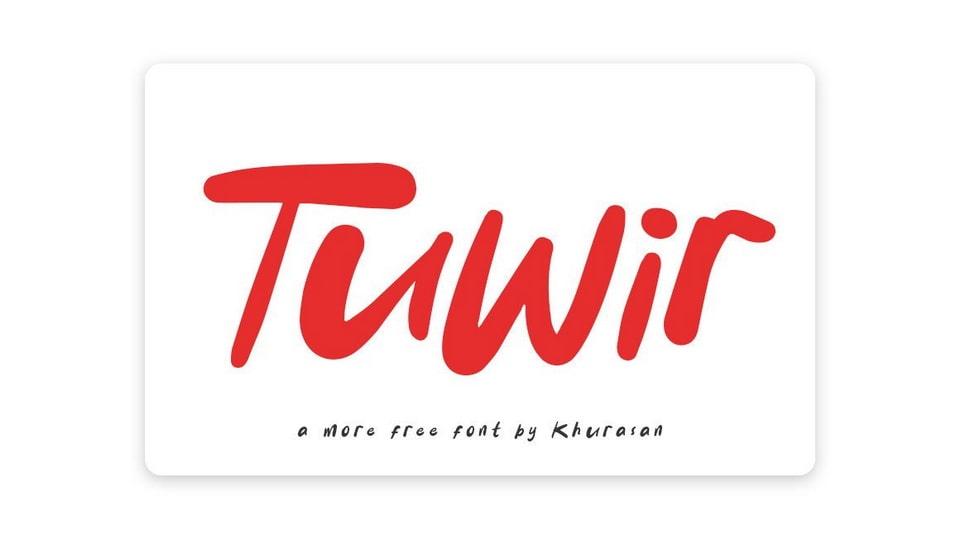
Download Tuwir font, a simple and smooth handwritten brush typeface. Tuwir font is perfect for posters, logos, magazines, book covers, banners, and many more.